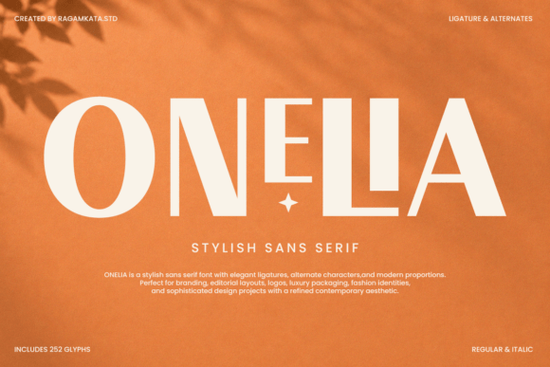
Onelia Font is a versatile and elegant sans serif typeface that brings a touch of modern luxury to any design project. Whether you're working on branding, editorial layouts, or packaging, this font offers a refined look that feels both timeless and contemporary. Its balanced letterforms and unique character shapes make it stand out while maintaining excellent readability across different mediums.
If you're looking for a font that combines simplicity with artistic flair, Onelia is an excellent choice. It's particularly well-suited for fashion brands, beauty businesses, and luxury packaging, where visual appeal plays a key role. The font’s distinctive ligatures and alternates add a level of detail that elevates the overall aesthetic without overwhelming the design.
For designers who want to create a polished and fashionable look, Onelia provides a strong foundation. Its clean construction makes it easy to use in a variety of applications, from social media campaigns to wedding stationery. The font’s flexibility ensures it works well in both digital and print formats, making it a valuable addition to any designer’s toolkit.
What Makes Onelia Font Stand Out?
One of the key features of Onelia Font is its balance between structure and creativity. Unlike many other sans serifs, it includes subtle details that give it a more personalized feel. These include refined alternates and custom ligatures that can be used to add a unique touch to your work.
The font also excels in readability, which is essential for any design that needs to communicate clearly. Whether you’re using it for headlines or body text, Onelia maintains a consistent and professional appearance. This makes it ideal for projects that require both visual impact and functional clarity.
Another advantage of Onelia is its adaptability. It works well in a range of styles, from minimalist to more elaborate designs. This versatility allows it to fit into different creative contexts without losing its identity. For example, it can be used in high-end brand identities or in more casual projects like print-on-demand products.
Who Can Benefit from Using Onelia Font?
Onelia Font is especially useful for designers, crafters, and small business owners who want to enhance their visual materials. It’s a great option for those working on fashion, beauty, or luxury-related projects, as it adds a sense of sophistication that aligns with these industries.
Print-on-demand sellers will find Onelia helpful for creating eye-catching designs that stand out in a competitive market. Its elegant style can make product listings more appealing, helping to attract customers and increase sales. Similarly, creative hobbyists can use it to add a professional touch to personal projects like handmade cards or custom illustrations.
For those looking to expand their font collection, Onelia offers a fresh alternative to more common sans serifs. It’s a good fit for anyone who wants to explore new typographic possibilities while maintaining a high standard of quality.
How to Use Onelia Font Effectively
To get the most out of Onelia Font, consider how it fits into your overall design strategy. Start by experimenting with different sizes and weights to see how it performs in various contexts. This will help you understand its strengths and limitations.
When using Onelia in a layout, pair it with complementary fonts to create contrast and visual interest. For example, pairing it with a more traditional serif can create a balanced and harmonious look. Be mindful of spacing and alignment to ensure the text remains readable and aesthetically pleasing.
Don’t be afraid to play with the font’s alternate characters and ligatures. These features can add a unique touch to your work, making it more distinctive and memorable. However, use them sparingly to avoid overcomplicating the design.
Before finalizing your design, test the font in different scenarios to ensure it meets your needs. Consider how it looks in both light and dark environments, and check its performance across various devices and platforms. This will help you make informed decisions and achieve the best results.
Whether you're working on a professional project or a personal endeavor, Onelia Font can help you achieve a refined and stylish look. With its combination of elegance and functionality, it’s a valuable tool for any designer looking to elevate their work.
- Start by exploring the font’s alternate characters and ligatures.
- Pair it with complementary fonts to create visual balance.
- Test the font in different design contexts to ensure readability.